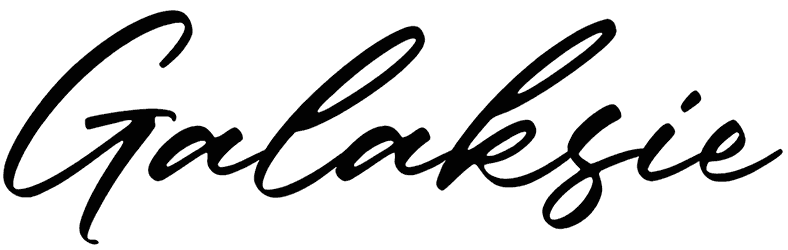
Standlist Font
Standlist is one of the handwritten fonts created with absolute focus and allows you to make an artistic impact even with left-brain characteristics. This signature font has asymmetric letters and continuous connections that somewhat reduce readability.
However, it can still stand out in the form of friendly letters, business cards, website banners, and wedding cards. If you want to make communication with your audience easier and feel that a personal touch can improve your writing, download this script font.
Designed by: Ramli Setiadi